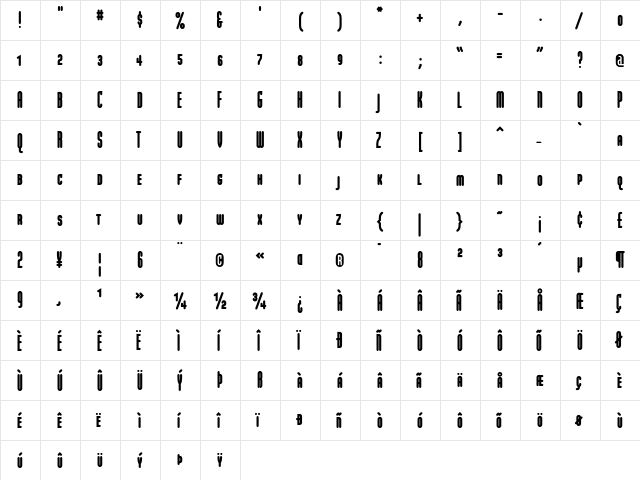
Modula RoundBlackSmallCaps
Design Context for Modula Typeface
Modula softens its letterforms with rounded terminals, giving it an approachable, friendly quality that works well in consumer-facing and digital contexts.
Well-suited to UI design, mobile interfaces, and any brand that wants approachability without sacrificing clarity.
Font Pairing: Pairs well with a rounded or humanist sans for body copy, maintaining the friendly tone without relying on Modula to carry extended reading.
Pro Tip: Use Modula for UI elements, app interfaces, and anywhere a friendly, approachable tone needs to be maintained without sacrificing clarity.